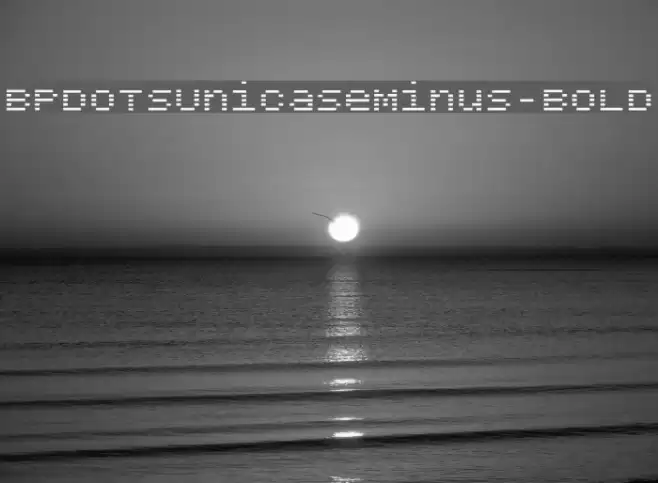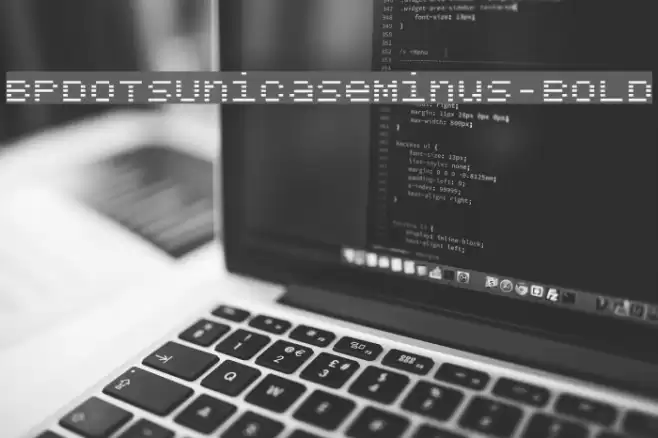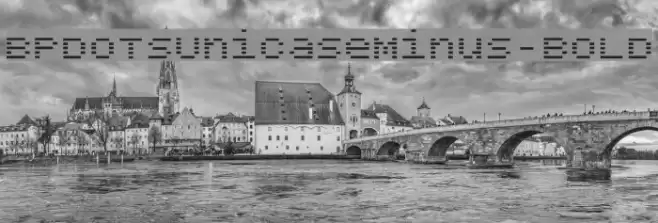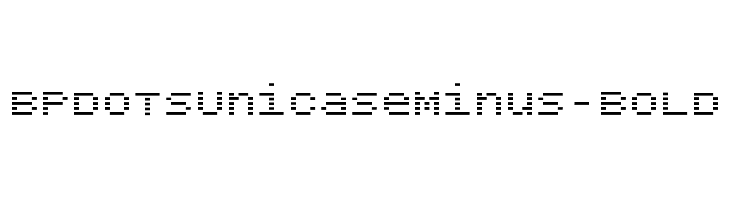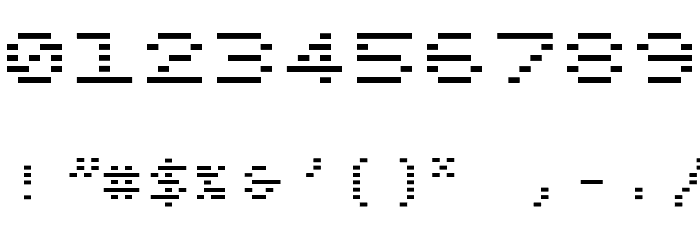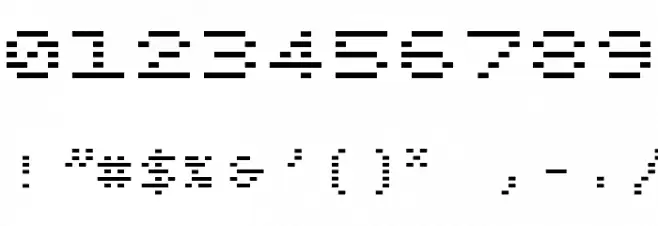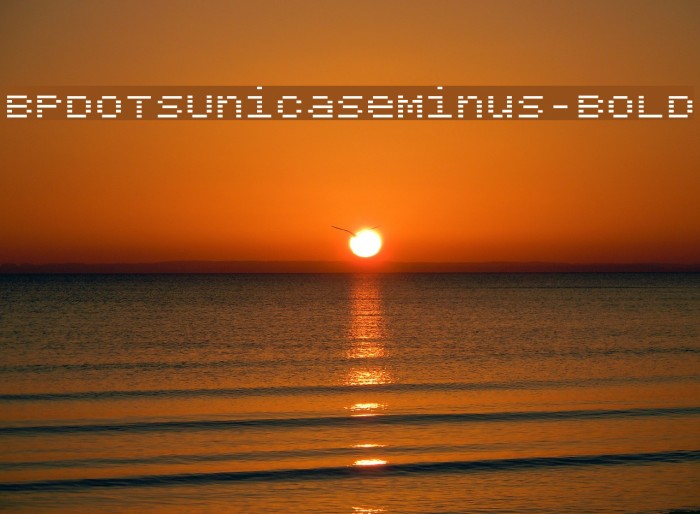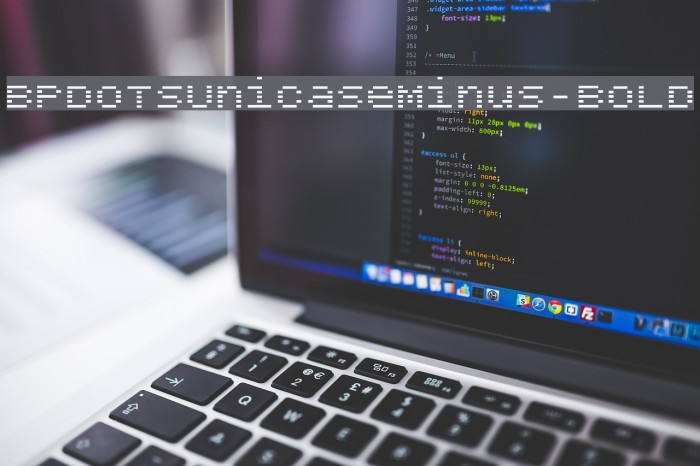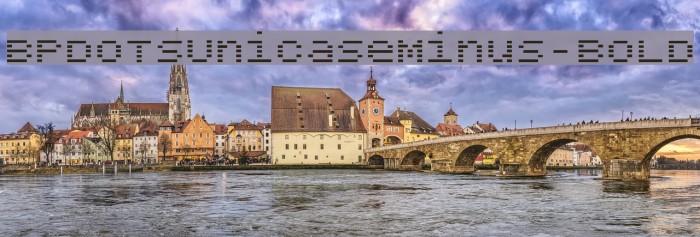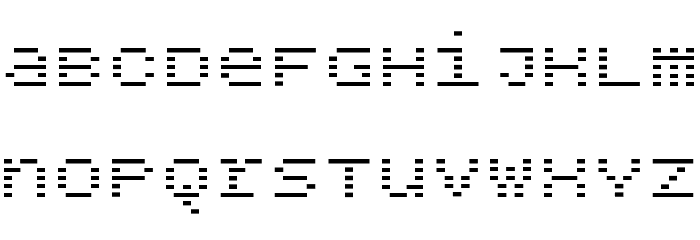
BPdotsUnicaseMinus-Bold Font
BPdotsUnicaseMinus-Bold Description
This font features a unique dotted design, where each character is composed of a series of small, evenly spaced dots. The style is geometric and structured, creating a digital or pixelated aesthetic. The uppercase and lowercase letters maintain a consistent height, contributing to a uniform appearance. Numbers and special characters follow the same dotted pattern, ensuring visual coherence across all glyphs. This font's distinct style makes it stand out, offering a modern and tech-inspired look.
A modern, dotted font with a digital, pixelated aesthetic from Uncategorized fonts.
- Proposed Projects: Ideal for digital art projects, tech-themed designs, and modern branding materials.
- Use Case: Logos, Headlines, Digital Art